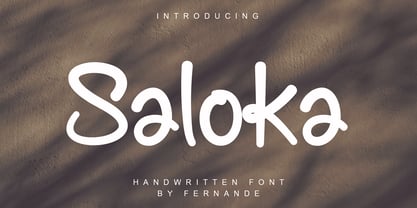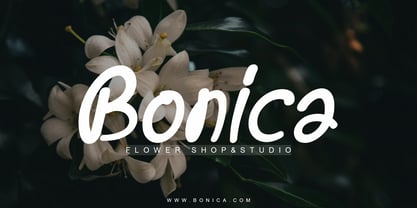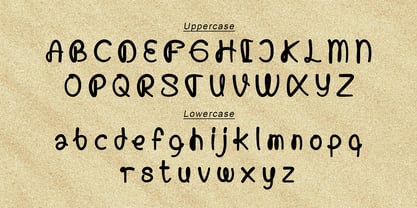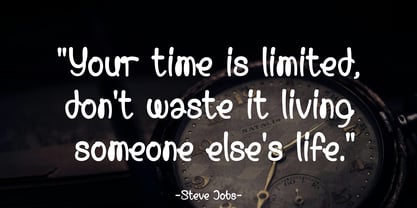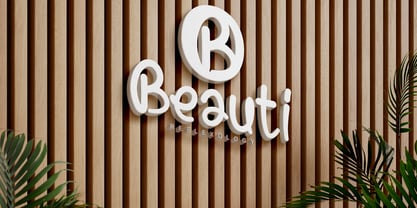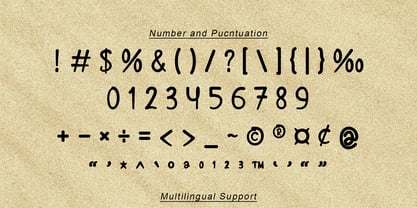
Saloka
by Fernande
The Saloka Font Family was designed by Angga Fernandi and published by Fernande. Saloka contains 2 styles and family package options. More about this family
Introducing Saloka, a playful handwritten font crafted to bring warmth, charm, and personality into your designs. With its smooth curves and natural handwritten flow, Saloka creates an authentic and friendly feel that works beautifully for branding, social media, packaging, quotes, invitations, and creative projects.
Designed with a clean yet expressive style, Saloka combines simplicity and character, making your text feel personal and approachable while remaining easy to read. Whether you want to create modern lifestyle branding or soft aesthetic visuals, Saloka adds a unique handwritten touch to every composition.
Designers: Angga Fernandi
Foundry: Fernande
"Fernande is a type foundry run by Angga Fernandi, specializing in the creation of elegant and lively handwritten typefaces with great precision. With a passion for experimenting with letterforms, it creates unique and expressive fonts. Committed to quality and innovation, it strives to provide distinctive typography that enriches visual storytelling and design aesthetics."